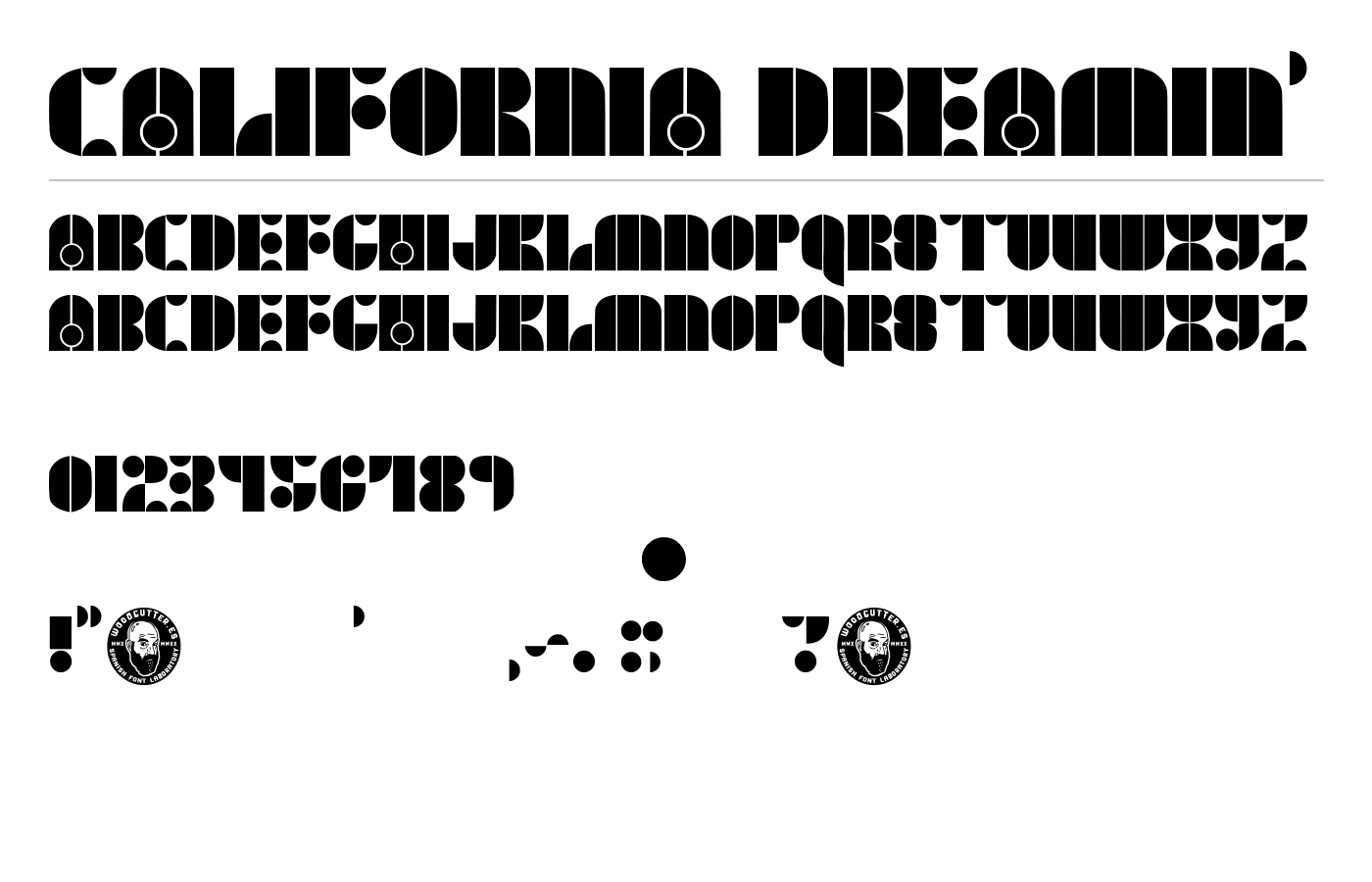
California Dreamin' is a bold, geometric display font with a distinct stencil-like style, characterized by its thick, rounded shapes and circular cutouts that create a modern yet retro vibe. This all-caps typeface offers strong visual impact and a playful, artistic personality, making it ideal for eye-catching headlines, logos, and posters where a unique, vintage-inspired statement is desired. Its dense forms and high contrast between solid and open spaces give it a memorable presence perfect for fashion, music, and creative branding.
California Dreamin' Font
About California Dreamin' Font